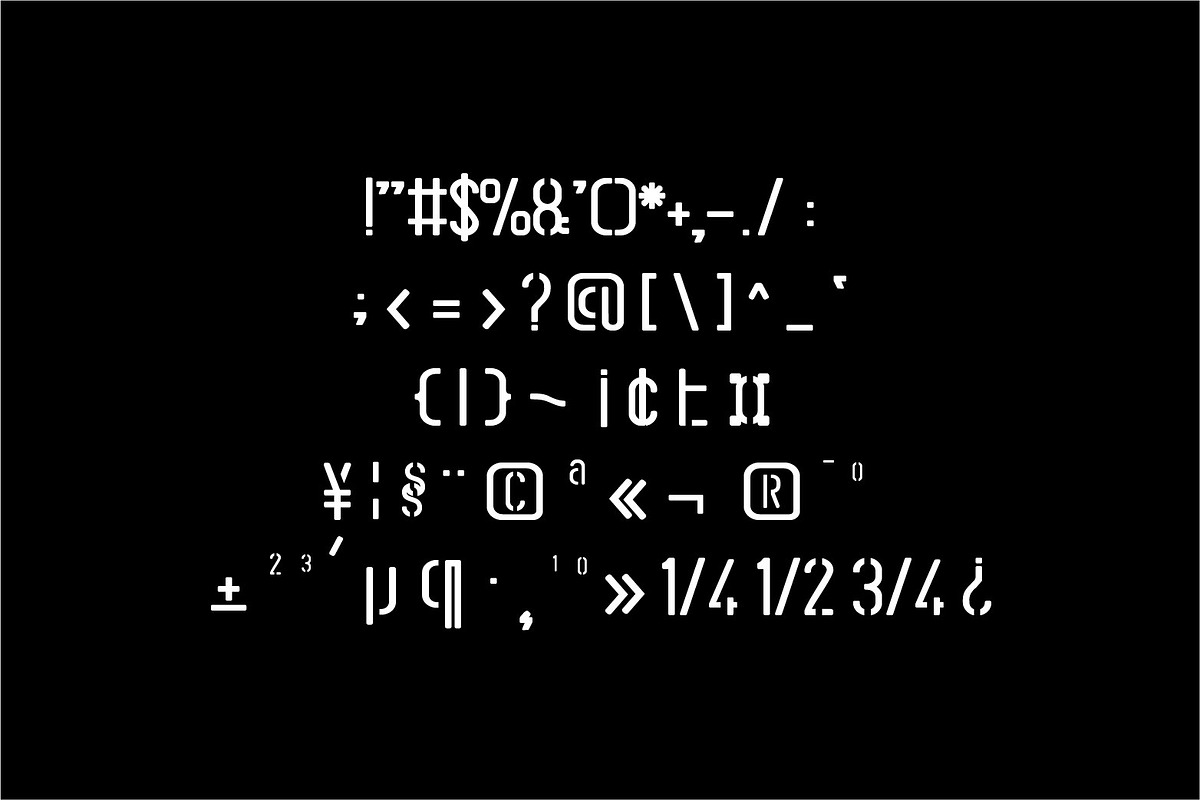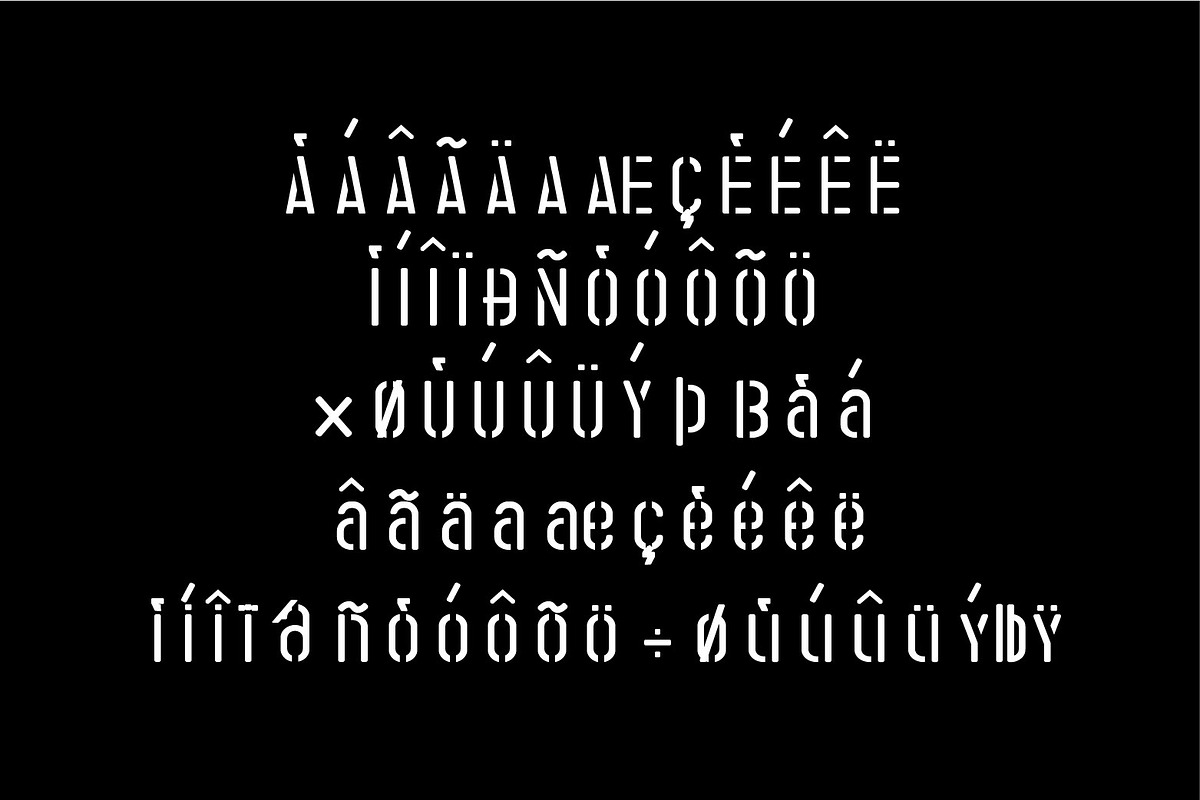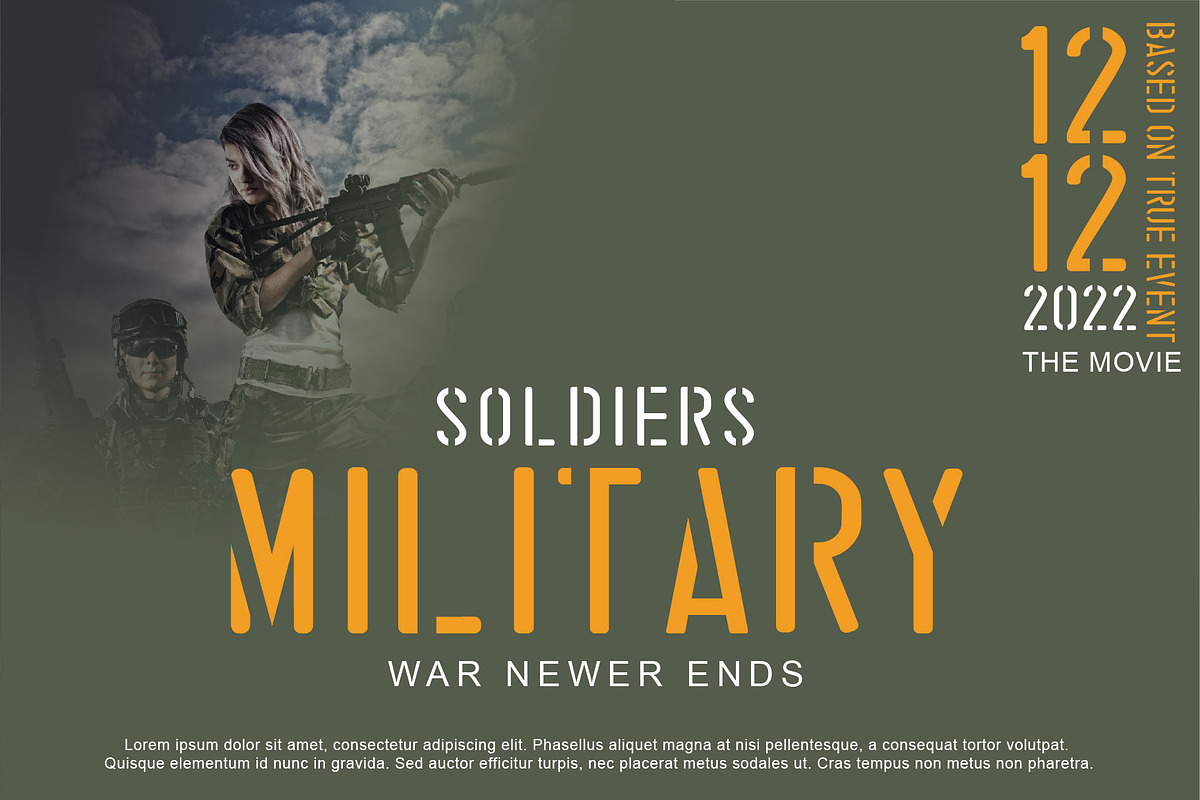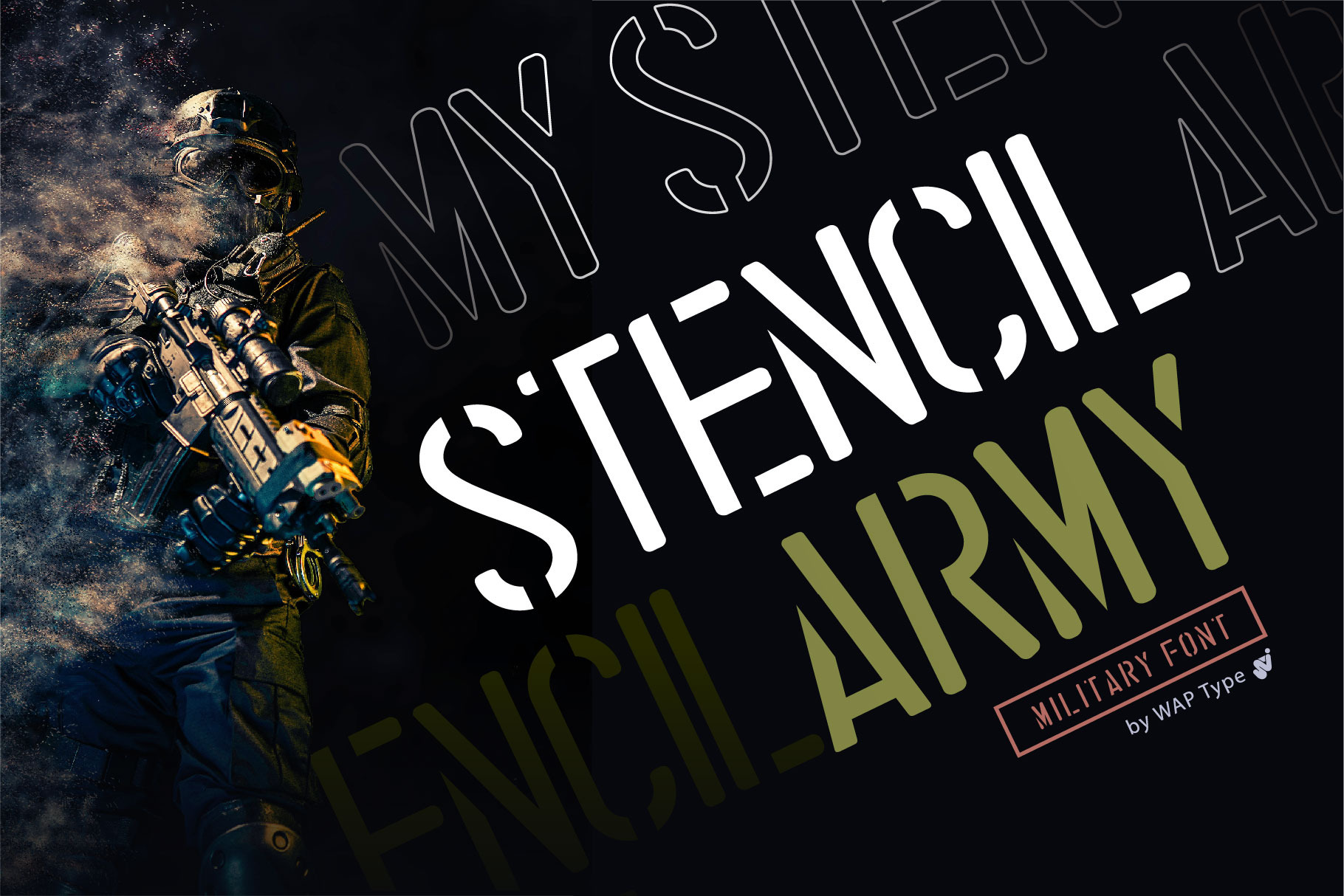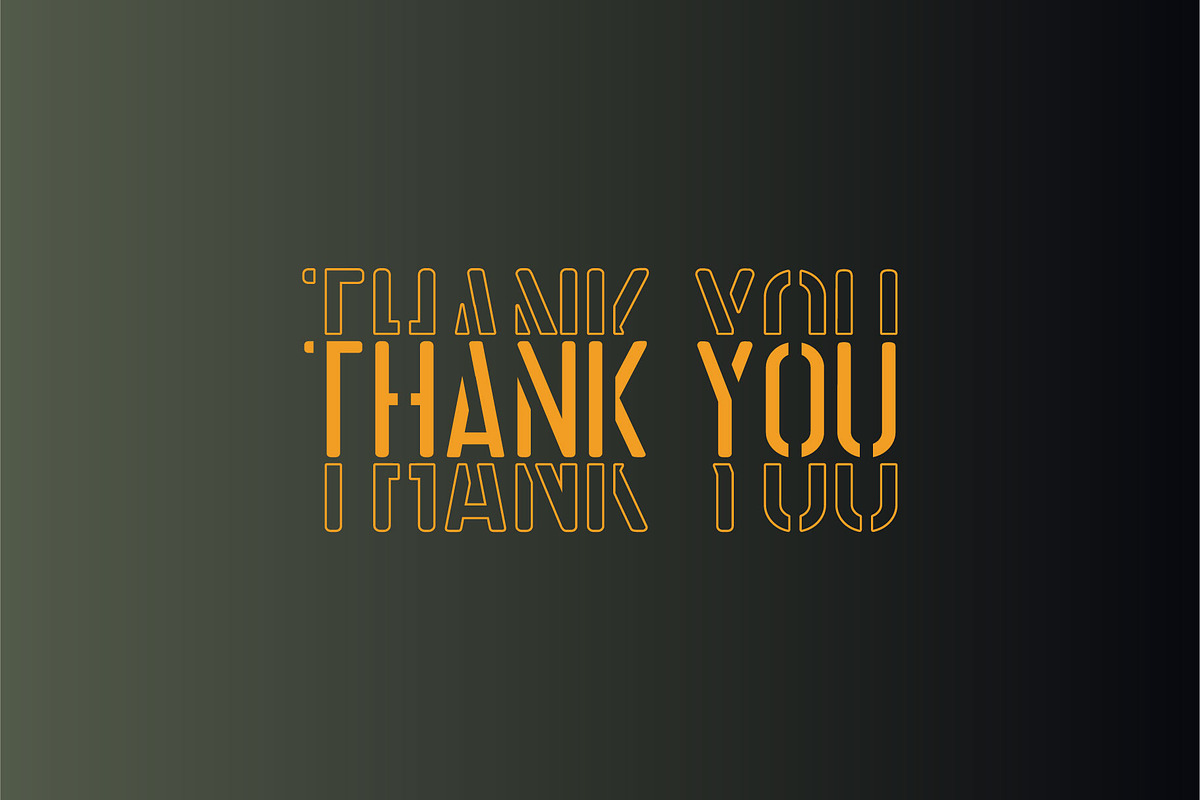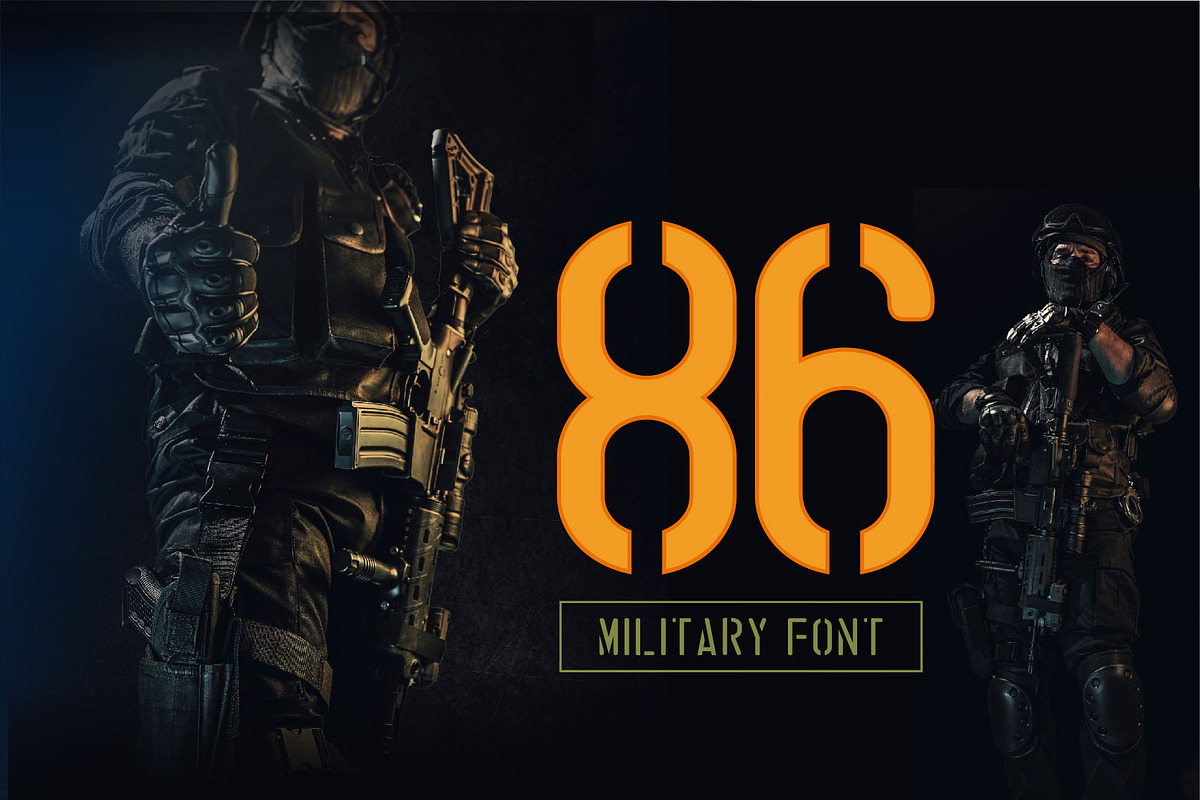
STENCIL ARMY Military Font
stencil army font is perfect for your up coming projects. Such as logo branding, editorial design, fashion, stationery design, sport design, blog design, modern advertising design, card invitation, art quote, home decor, book/cover title, special events and any more.